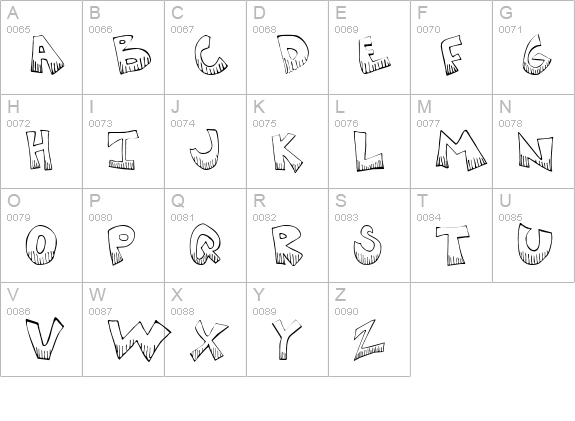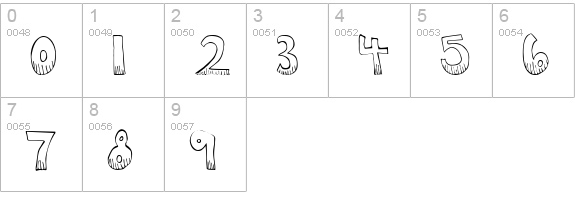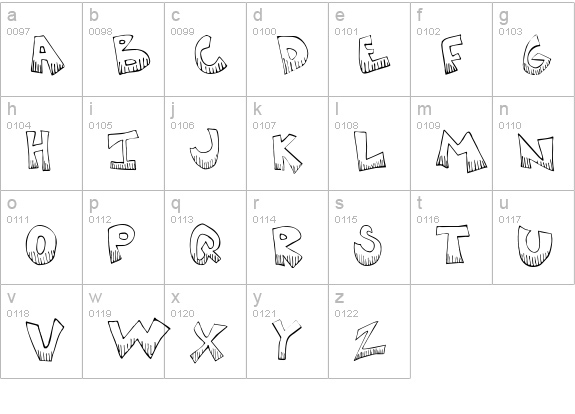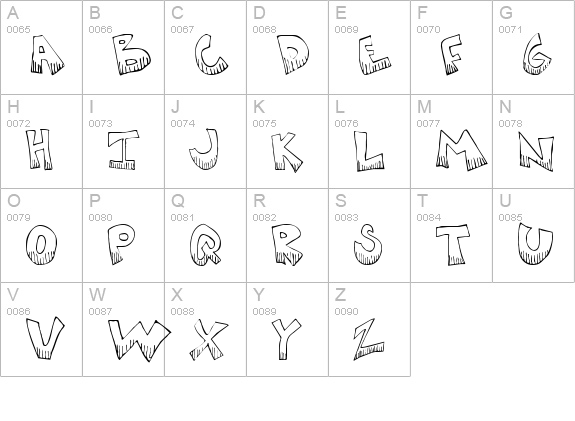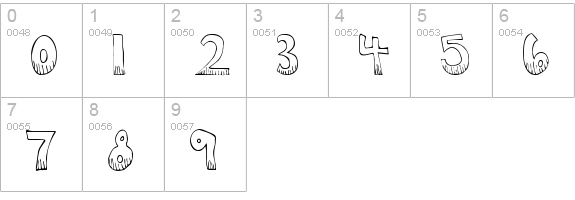
KrazyKool Font Details
Introducing KrazyKool font, a funky and eye-catching typeface designed to add a playful touch to your projects. This unique font features quirky and exaggerated letterforms that exude a sense of fun and excitement. Whether you're working on a poster, logo, or social media graphic, KrazyKool font is sure to make a statement. Best of all, KrazyKool font is available for free download at FontsMarket.com. This means you can easily access this creative font and incorporate it into your designs without any cost. So why wait? Add a touch of whimsy and creativity to your projects with KrazyKool font today!